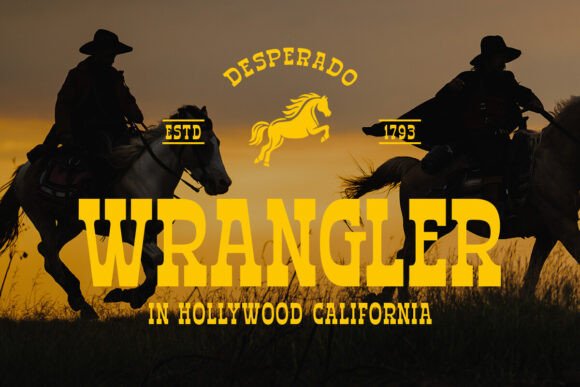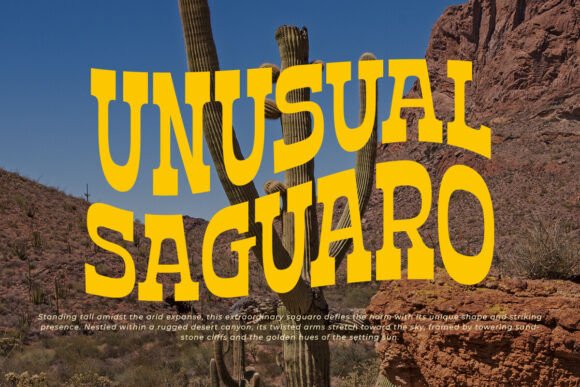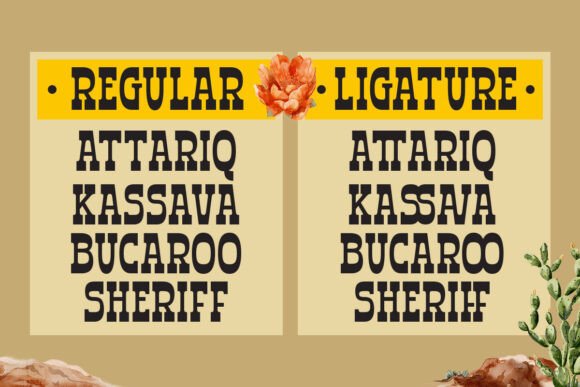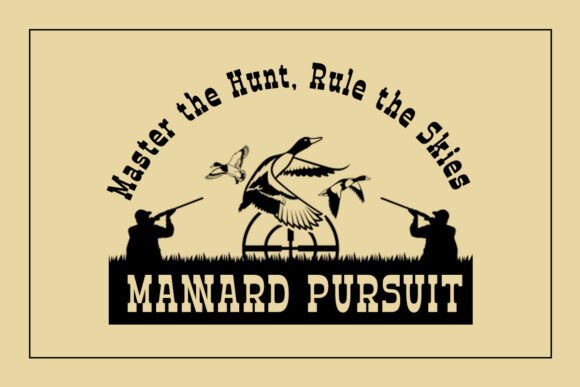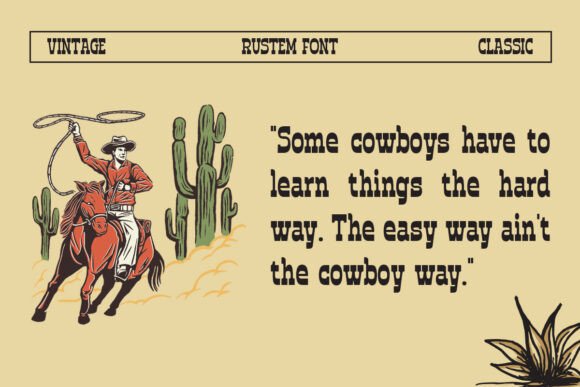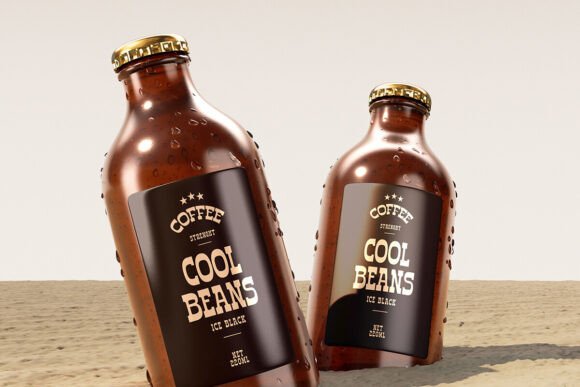
Rustem Font Font: The Wild West Spirit of Typography
Imagine you’re strolling down a dusty old Main Street, surrounded by vintage saloon signs and worn-out billboards. The warm sunlight casts a golden glow on the weathered facades, and you can almost hear the sound of horse hooves echoing through the air. This is the world of Rustem Font Font, a powerful vintage serif that embodies the rugged spirit of the Wild West.
As a designer, you’re always on the lookout for that perfect font to bring your creative project to life. With Rustem Font Font, you’ll find a high-quality design resource that’s perfect for logotypes, branding, editorial design, signage, and high-impact headlines. Its bold letterforms, thick strokes, and classic Western details evoke the essence of Americana, cowboy culture, and vintage saloon signage, all while maintaining a touch of elegance and versatility.
Honest Review: Rustem Font Font
I recently came across Rustem Font Font, a versatile design resource that has caught my attention. As a designer, I appreciate high quality fonts that can elevate my creative projects.
One of the standout features of Rustem Font Font is its transparent background, which makes it incredibly easy to use in various design scenarios. ✨ I’ve found it to be particularly useful in graphic design and digital art projects.
Here are some of the key benefits of using Rustem Font Font:
- High quality design that can add a professional touch to creative projects
- Transparent background for seamless integration into various design scenarios
However, I did encounter some limitations when using Rustem Font Font. ⚠️ The font can be quite bold and overpowering, so it’s essential to use it in moderation and balance it with other design elements.
Overall, I’m impressed with Rustem Font Font and would recommend it to designers looking for a reliable and versatile font resource.
Tips for Getting the Most Out of Rustem Font Font
Experiment with different font sizes and colors to create a unique design. Use the font in combination with other design elements to create a visually appealing project.
Rustem Font Font is perfect for creative projects such as logo design, brochure design, and social media graphics. It’s also great for use in presentations and reports.